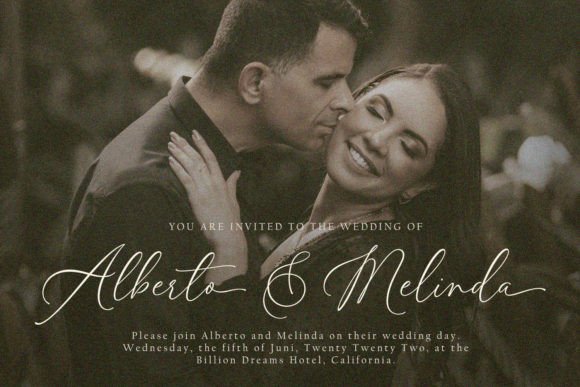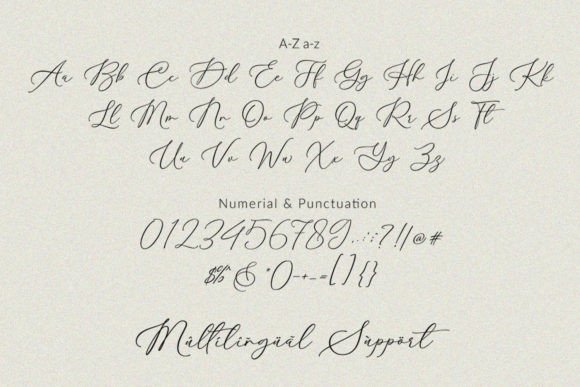
Hey Beauty Font
Hey Beauty is a chic and delicate script font. Whether you’re looking for fonts for Instagram or calligraphy scripts for DIY projects, this font will turn any creative idea into a true piece of art! This font is PUA encoded which means you can access all the glyphs and ligatures with ease!